As designers, the demand to produce unique typography is never-ending. To make it worse, the creative block is getting more severe. At this point, returning to the classic can give you more inspiration than you think. So, here are some aesthetic vintage fonts that you can use as they are, or blend them in your contemporary designs.
25 Vintage and Aesthetic Fonts to Decorate Your Designs
As time goes by, many aesthetic fonts appear to be as vintage as possible. But, you do not need to feel overwhelmed, for we have compiled several best ones to enhance the timeless vibe in your designs.
1. Mirdane a Vintage Font
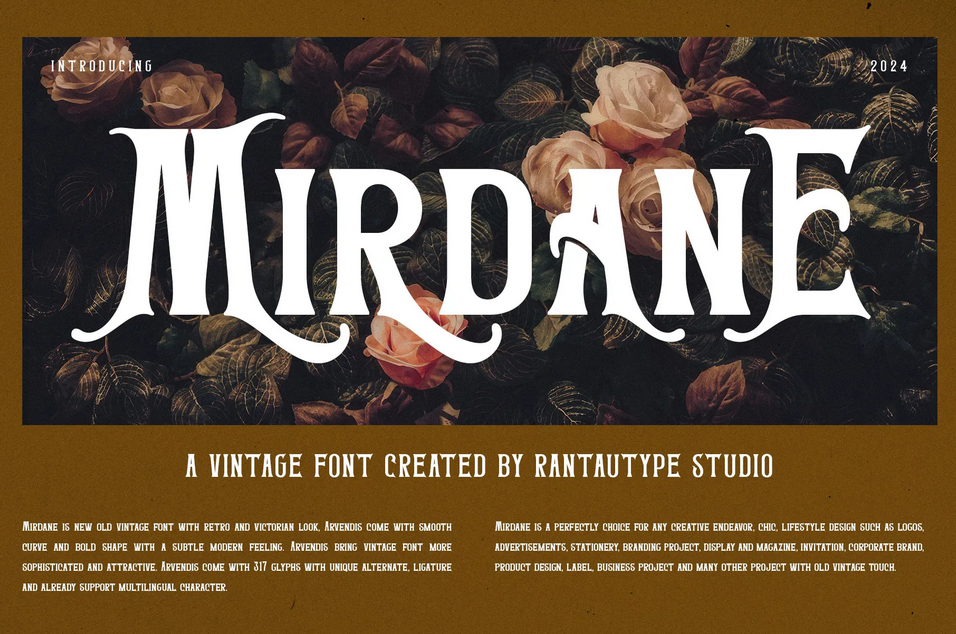
Mirdane visually alludes to the appearance of sans serif, but the thick and consistent letterform of the font is actually the unique characteristic of slab serif–famous for its usage for advertising in the 19th and 20th centuries.
2. Agerola Vintage Font
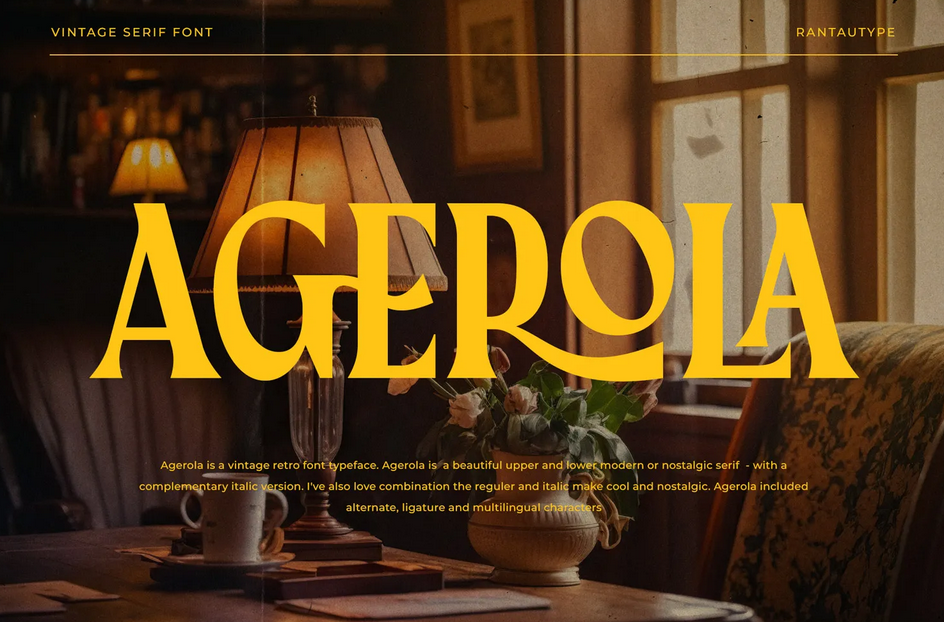
Agerola highlights the beauty of the fusion between the traditional serif font and a modern touch. In addition to that, the contrast of the strokes is decently visible that will make your typography more readable to your audience.
3. Arthegis Script Monoline Font
Arthegis emphasises the characteristics of handwritten strokes of the formal script font, and aims to bring a casual vibe, making it ideal for projects that represent youthfulness.
4. Arishen Decorative Victorian Font
Arishen is one of the aesthetic vintage fonts that is visually striking and impactful. Hence, each of ornamented stroke is perfect for displays or spots to attract attention.
5. Mencary A Old Typewriter Font
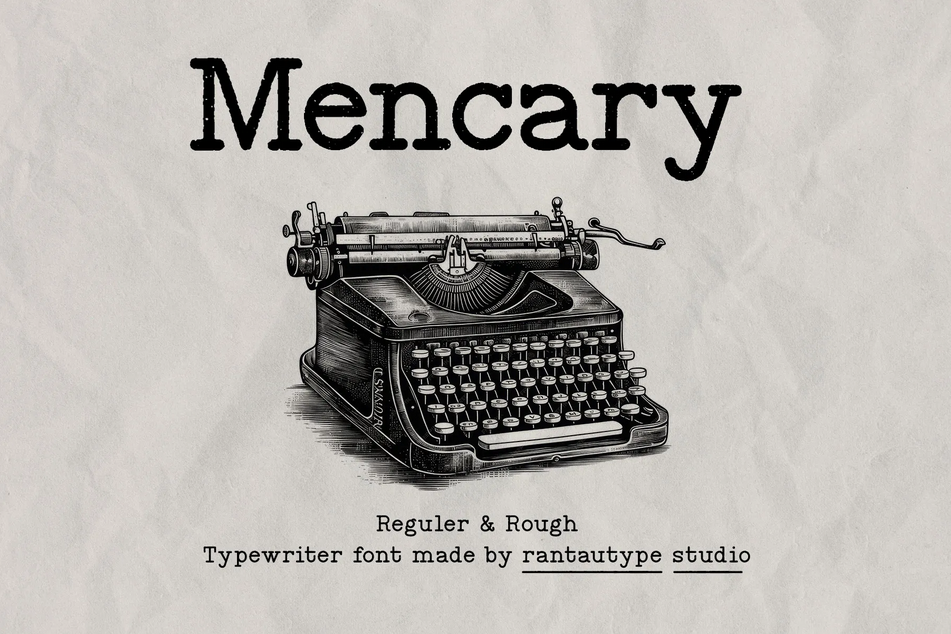
Mencary gives a nostalgic feeling of the proportional arrangement of the Roman lettering. Its neatness and simplicity are wonderful if your projects wish to connect with the audience at a personal level.
6. Romaben Old Vintage Serif Font
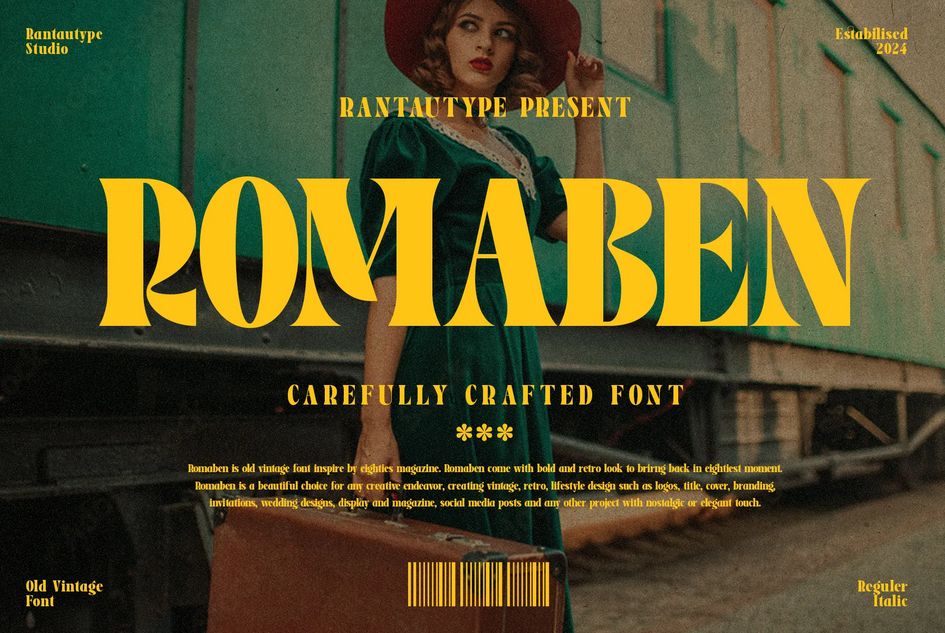
Romaben speaks nothing but elegance and is classically modern. Its arrangement of the vertical axis and dramatic letters’ thickness make the font exceptional for various design projects.
7. Matona Hybrid BlackLetter Font
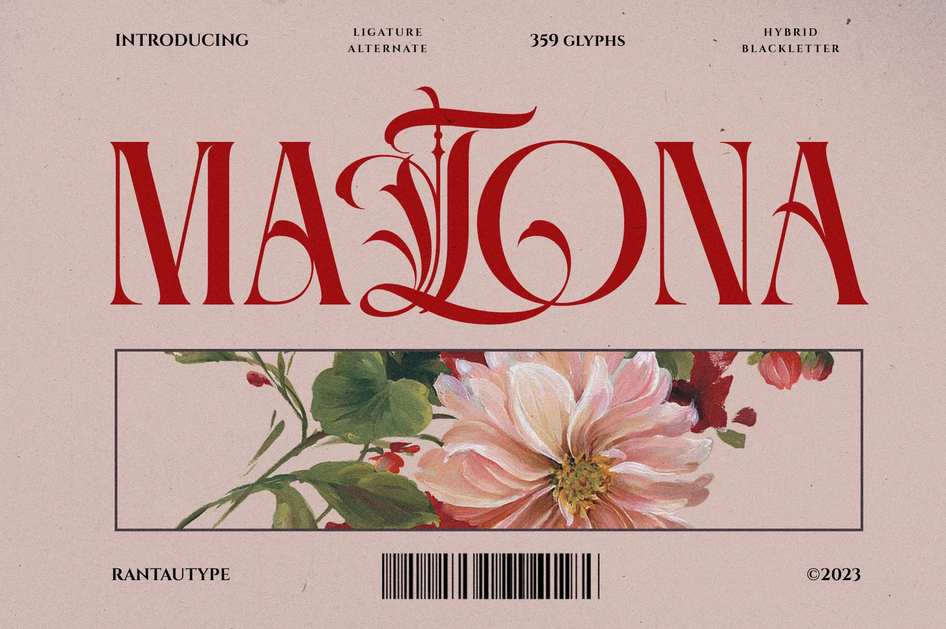
Matona displays sophisticated blending–the signature descender of the serif’s baseline and the calligraphic cursives. Regardless, the contrast density between each letter is quite proper, making the font perfect for unique visual designs.
8. Angela Brown Serif Combination Font
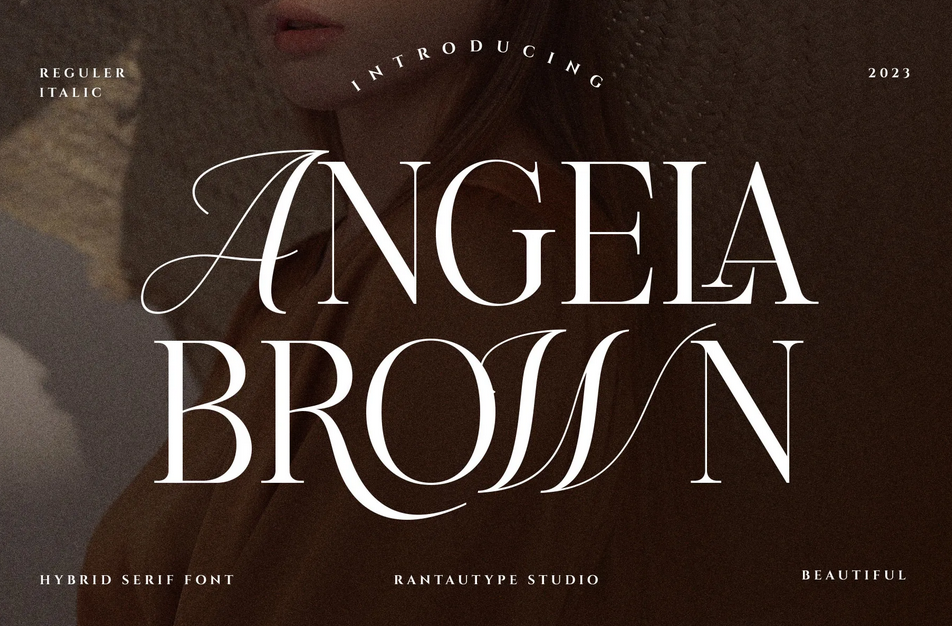
Another attractive fusion between the classic style of calligraphy and the distinct modern serif is Angela. The font not only expresses the vibe of the aesthetic vintage fonts but also authority.
9. Aspirant Retro Script Font
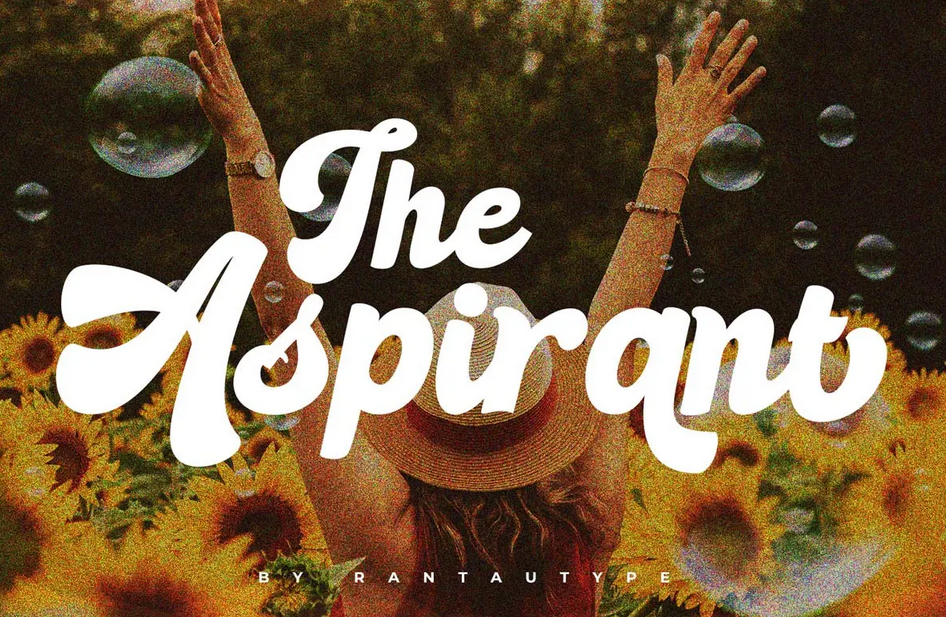
A one-of-a-kind font that almost resembles the thick boldness of sans serif. However, each letter comes from the classic script, making it less stiff and more casual.
10. Laurasia Vintage Serif Font
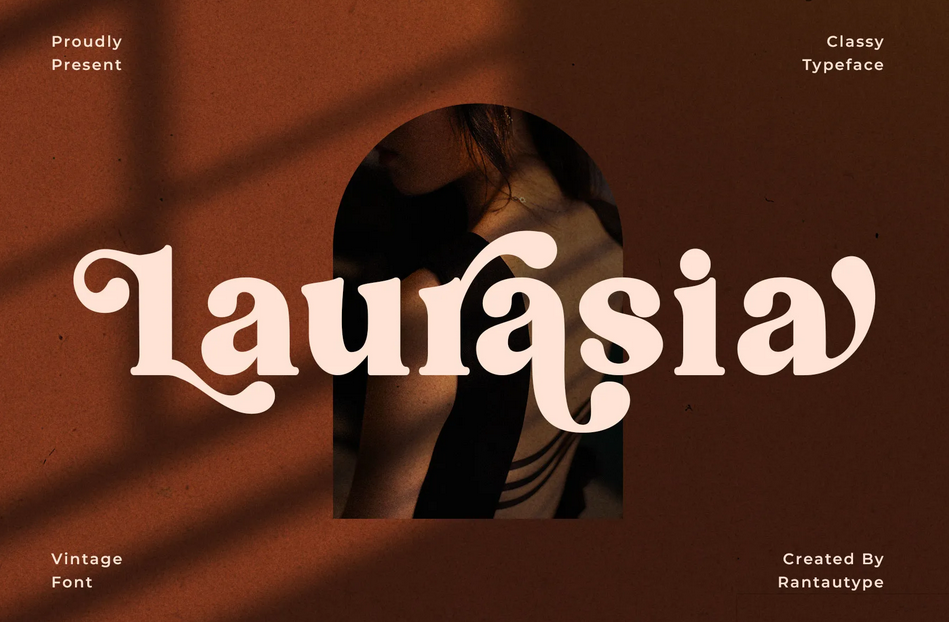
Laurasia’s distinct characteristic is the dramatic and long branches. In addition to that, the letters’ thick weight create a more modern and stylish appearance.
11. Rochega Bold Modern Serif Font
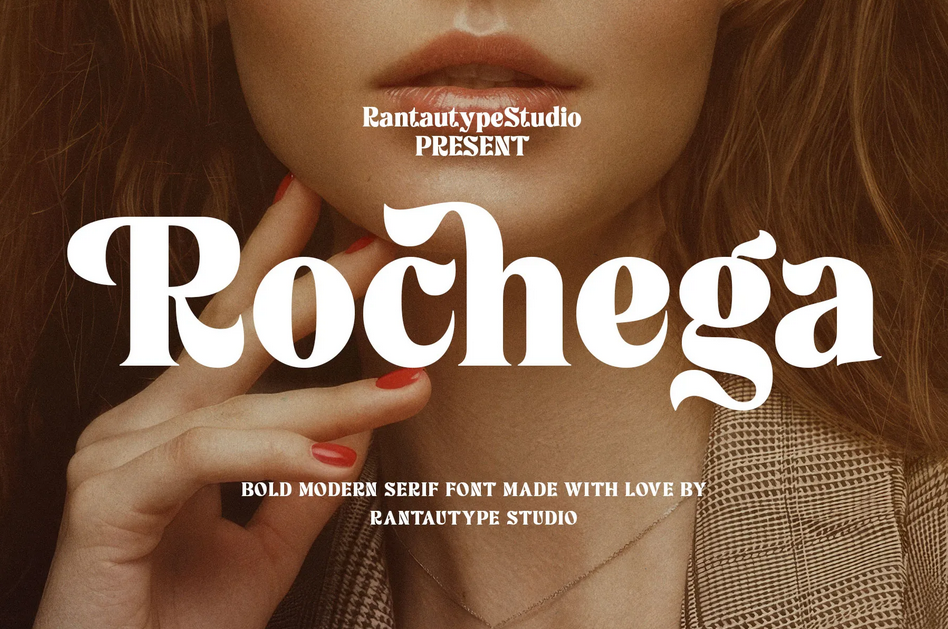
Unlike the usual serif, Rochega has a more consistent style of lettering boldness. Along with visible contrast, the charaches, it materialize the essence of vintage aesthetic font, displaying a more courageous aura as well as an elegant one.
12. Namely Old Vintage Retro Font
If you look closely, Namely gives the reminiscence of the famous video game company logo, Sega but with less density and more eccentric letters’ contrasts.
13. Westner Vintage Western Font
Westner is a breath in the morning air–free like in the Westlife. With the font’s stunning descending element, your design will be as memorable as ever.
14. Malbern Vintage Decorative Font
Malbern is the simple lettering font, inspired by the old-fashioned magazines, with even weight in each letterforms. Your design will be exceptional with this decorative font.
15. Mordela Western Vintage Font
Another Western-inspired font that displays the authentic vibe of the wildest essence. With the combination of thick and thin strokes and modest serif, your design will be undeniably eye-catching.
16. Cinega Sexy Vintage Serif Font
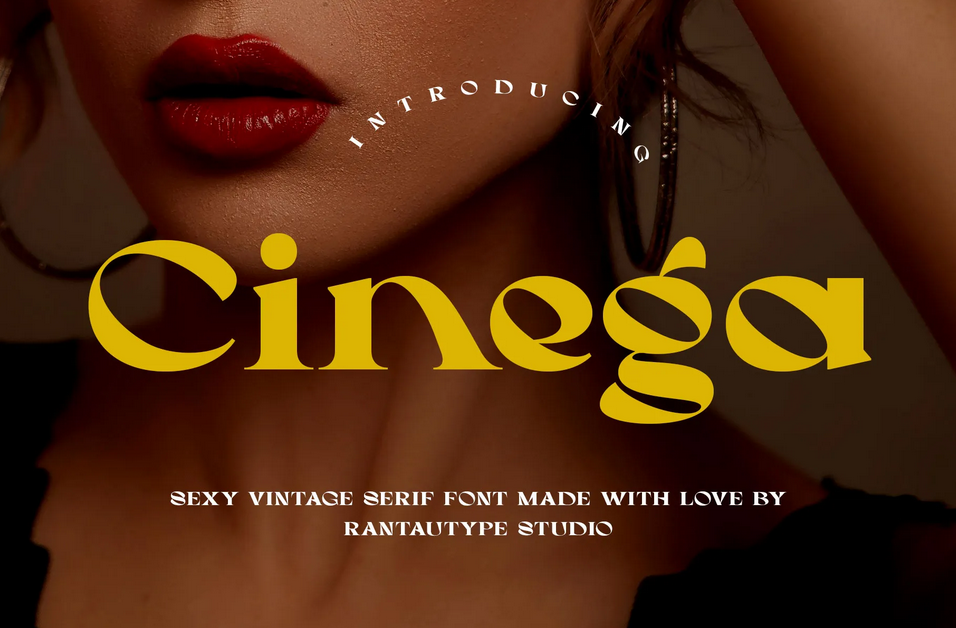
The attractive curve lines of Cinega can persuade your audience with its persuasive charm. Moreover, the unique form of the counter is quite sensational, making the font one of the most aestheti vintage fonts on our list.
17. Adelga Classic Vintage Font
Imagine the gorgeous appearance of flowers and their carefully crafted branches are turned into a font; that is Adelga.
18. Rubyrose Vintage Serif Font
Just like its name, Rubyrose represents the elegant touch of serif font style, with a slight twist of modern vibe and unique contrast shapes.
19. Hondesia Vintage Bold Script Font
Inspired by the vintage fonts in the 70s–like the iconic Willy Wonka film poster—Hondesia reminds you of the nostalgic feeling and its power to become everlasting.
20. Baserio Bold Vintage Sans Font
With its thick weight and daring rounded letter shape, Baserio screams the tropical sensation of palm beaches.
21. Benira Vintage Classy Serif Font
Benira is one of the aesthetic vintage fonts that represent the sharpness of serif font, with the unique lines of the loops.
22. Balleya Vintage Script Font
Balleya’s connecting letters give a strong representation of the old-fashioned script font, but the versatile contrast in the letters’ stems and lines is the most striking point of the font.
23. Nervida Classic Vintage Font
Nervida has dazzling diacritical marks and additional strokes, whilst still passionately adopting the classic serif font.
24. Caderia Vintage Display Serif Font
Caderia has the old-fashioned touch and simplicity of the serif font. However, its letters’ style are more modern and decorative.
25. Belisona Old Fashioned Vintage Font
Interesting additional lines and calligraphic swashes–Belisona is inspired by some display fonts in the 70s and 80s. The font will shape flawless and eye-catching text for your designs.
The appearance of aesthetic vintage fonts can be old-fashioned, but the quality is always memorable and impressive. However, indeed, as time goes by, people always search for new things, and thus many fonts appear, either revolutionary ones or fusion ones, just like the list above.